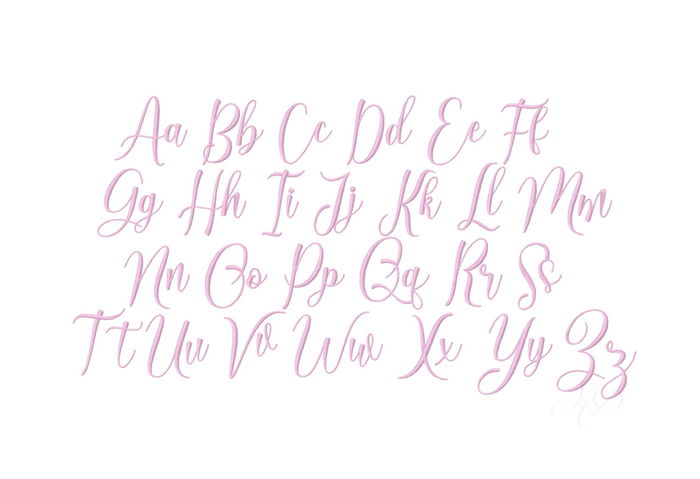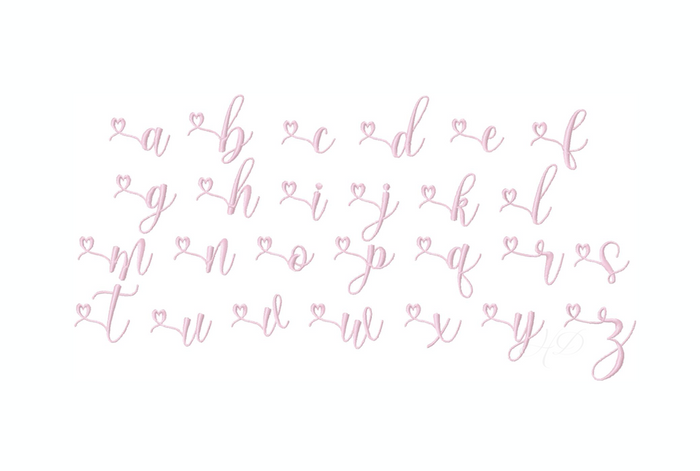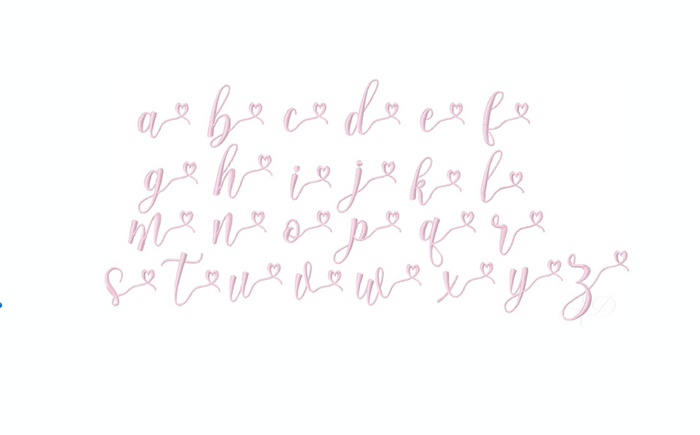
Sweet Marissa Satin Embroidery Font
Transform your crafting projects with the Sweet Marissa Satin Embroidery Font. This versatile font package features four sizes—1.5", 2", 2.5", and 3"—with a total of 104 unique characters, allowing you to create personalized monograms effortlessly. The font includes uppercase and lowercase letters as well as stylish swashes to enhance your designs.
Perfect for DIY enthusiasts looking to elevate their creations, the Sweet Marissa Font allows you to express your unique style. Dive into the world of monogramming today!